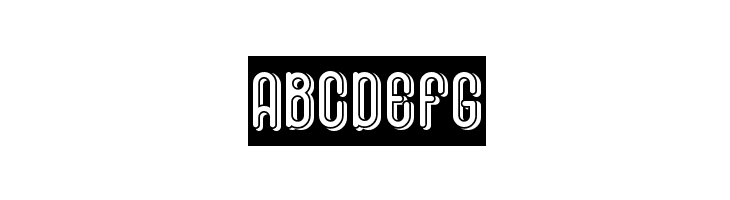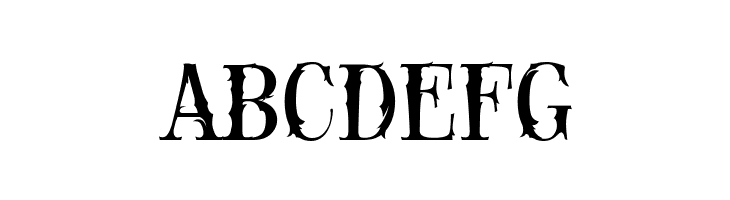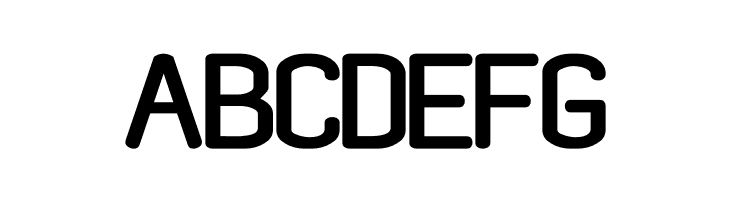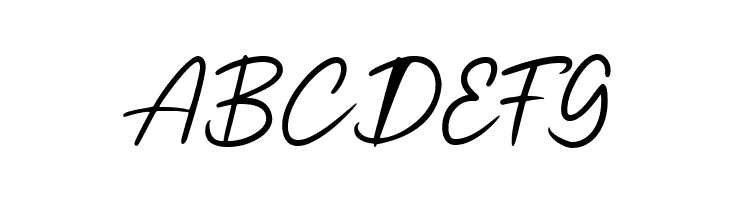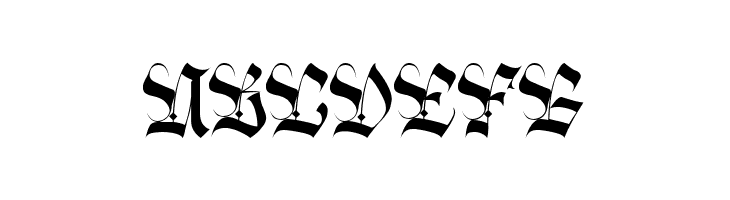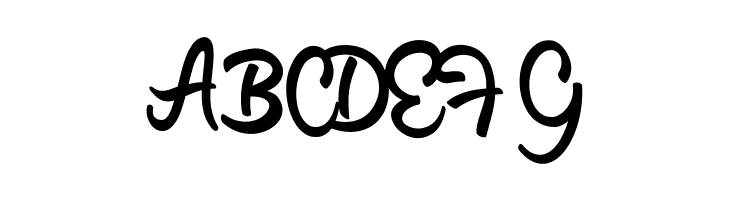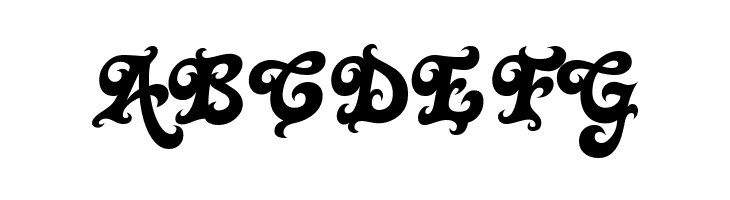
A bold, ornate blackletter font with a medieval aesthetic.
An ornate and decorative font with bold, intricate details.
A bold, distressed serif font with a grunge aesthetic.
A bold, decorative script font with elegant, flowing strokes.
A dynamic, fluid handwritten font with smooth, flowing curves.
A bold, decorative font with a three-dimensional outline effect.
A bold, rounded, and modern font with a clean and approachable style.
A bold, rounded sans-serif font with a modern and clean look.
A bold, playful font with exaggerated curves and a whimsical style.